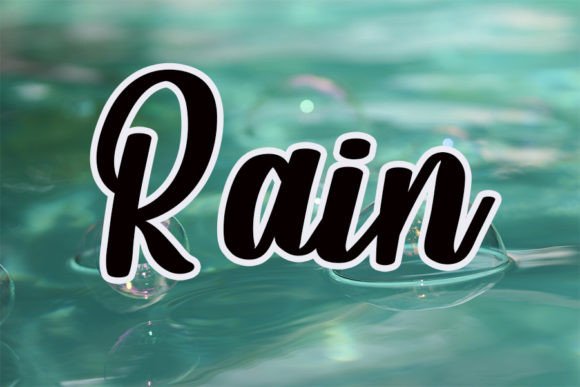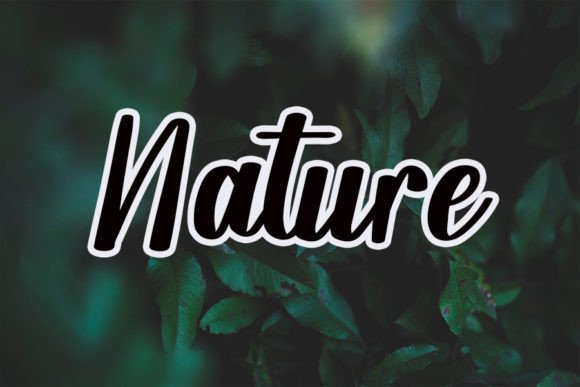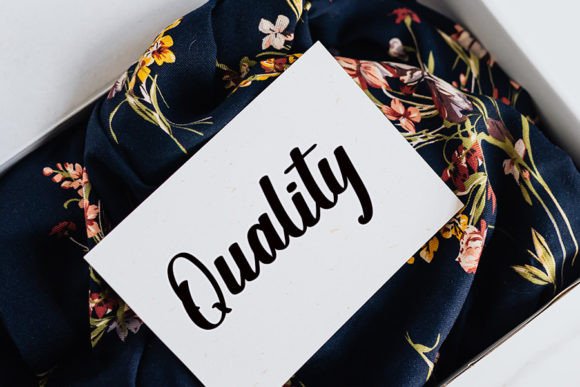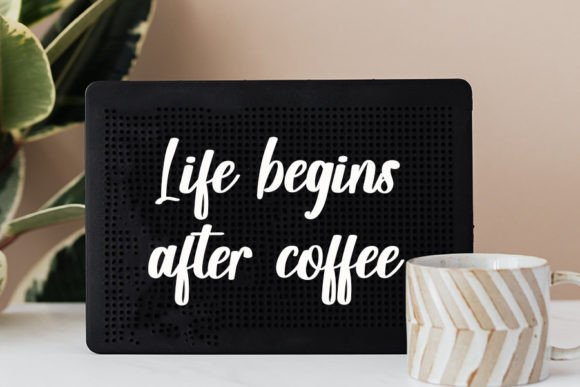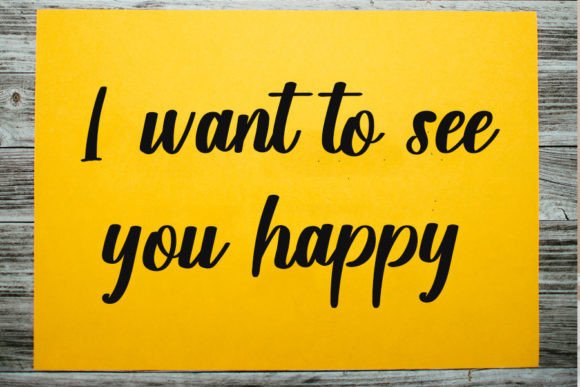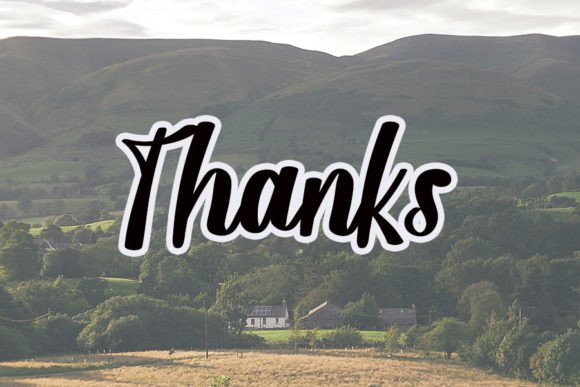
Introducing Farmhouse Font: A Modern Handwritten Style with a Classic Twist
Are you a designer or crafter looking for a unique and stylish font to elevate your projects? Look no further than Farmhouse Font, a cool handwritten font that combines modern vibes with a spotless form, inspired by classic calligraphy. In this article, we’ll dive into the features and benefits of Farmhouse Font, and explore how it can enhance the beauty of your designs.
A Balanced and Varied Font
Farmhouse Font is a carefully crafted font that strikes the perfect balance between modern style and classic elegance. Not too thin and not too thick, this font is designed to be versatile and adaptable, making it suitable for a wide range of projects. Whether you’re working on a branding campaign, a craft project, or a digital design, Farmhouse Font is the perfect choice.
One of the standout features of Farmhouse Font is its balanced and varied letterforms. Each letter has been carefully designed to be unique and visually appealing, with a subtle flair that adds a touch of sophistication to any design. The font’s varied letterforms also help to create a sense of movement and flow, making it perfect for designs that require a sense of energy and dynamism.
Inspired by Classic Calligraphy
Farmhouse Font is inspired by the classic calligraphy of the past, but with a modern twist. The font’s creator has taken the timeless elegance of traditional calligraphy and updated it with a modern vibe, creating a font that is both nostalgic and fresh. This blend of old and new makes Farmhouse Font a truly unique and eye-catching choice for designers and crafters.
Farmhouse Font is a versatile font that is perfect for a wide range of design applications. Whether you’re a professional designer or a crafter working on a personal project, this font is sure to impress. Here are just a few ways you can use Farmhouse Font:
- Branding and logos: Use Farmhouse Font to create a unique and memorable logo for your brand. The font’s modern vibe and classic elegance make it perfect for businesses that want to stand out from the crowd.
- Craft projects: Add a touch of elegance to your craft projects with Farmhouse Font. Whether you’re working on a handmade card, a scrapbook, or a piece of home decor, this font is sure to impress.
- Digital designs: Farmhouse Font is perfect for digital designs, including social media graphics, blog posts, and website headers. The font’s clean and modern lines make it easy to read on a variety of devices.
Why Choose Farmhouse Font?
So why choose Farmhouse Font over other fonts on the market? Here are just a few reasons:
- Unique and eye-catching: Farmhouse Font is a truly unique and eye-catching font that is sure to stand out from the crowd.
- Versatile: This font is versatile and adaptable, making it suitable for a wide range of design applications.
- Easy to read: Farmhouse Font is clean and easy to read, making it perfect for designs that require a clear and concise message.
- Modern and classic: This font combines modern style with classic elegance, making it perfect for designers and crafters who want to create timeless designs.